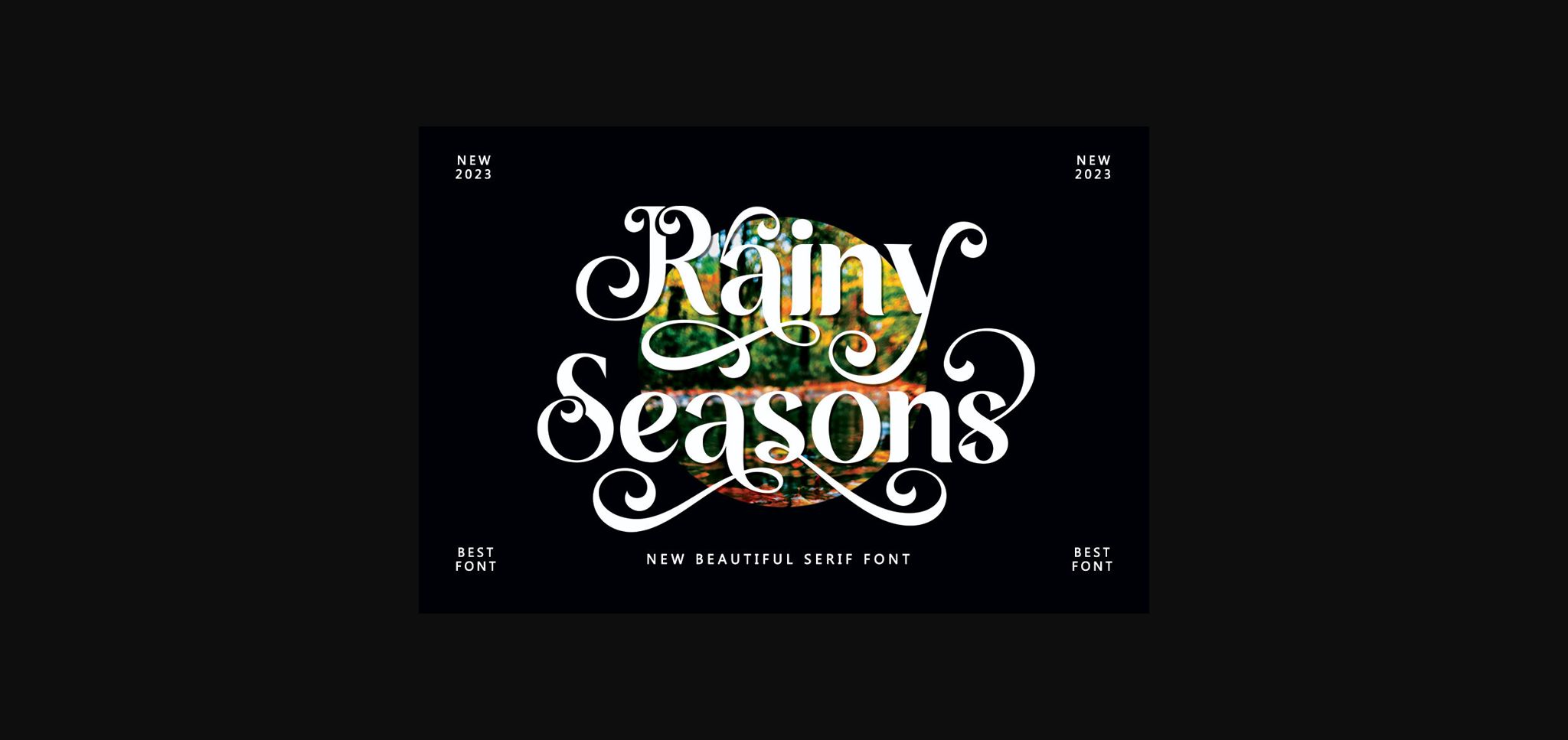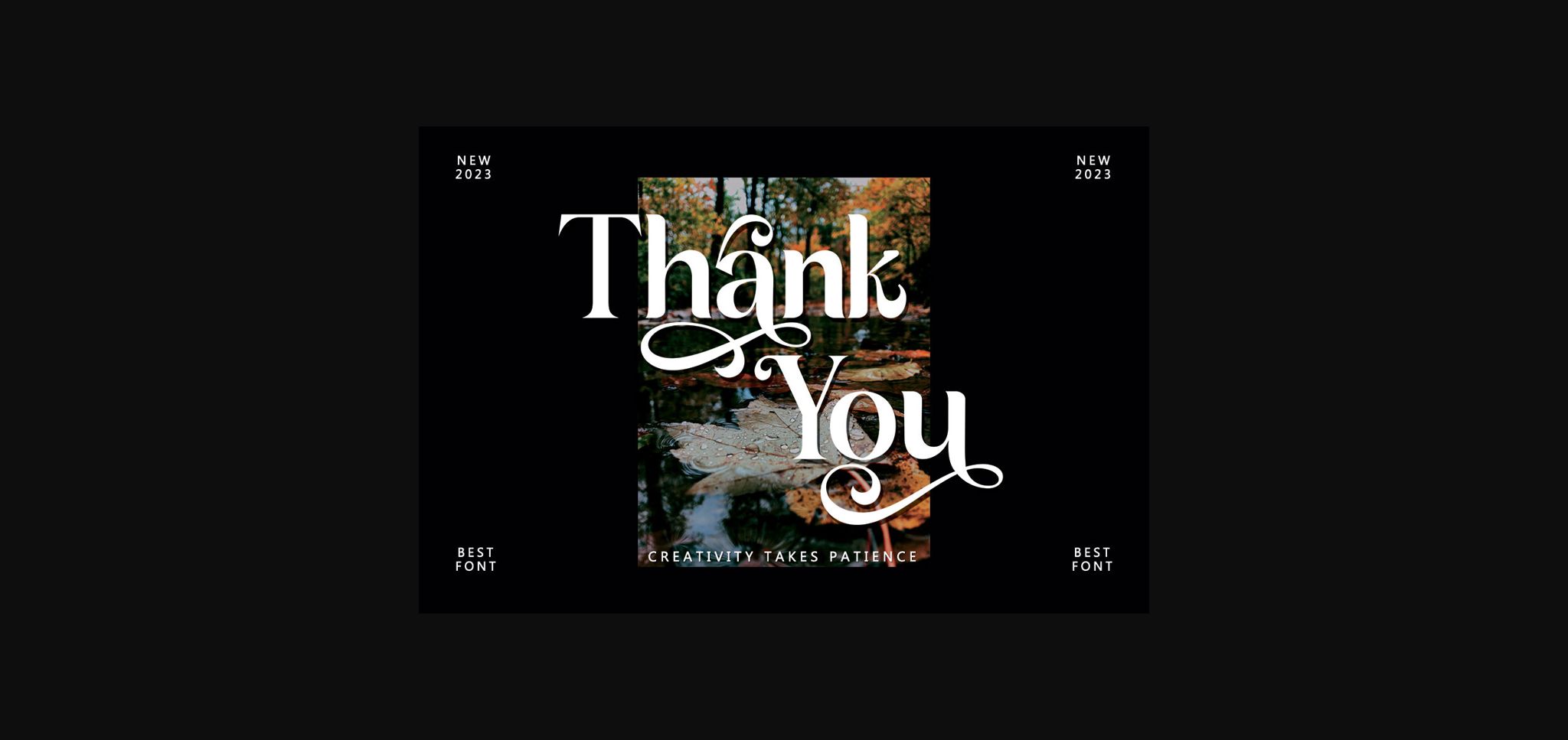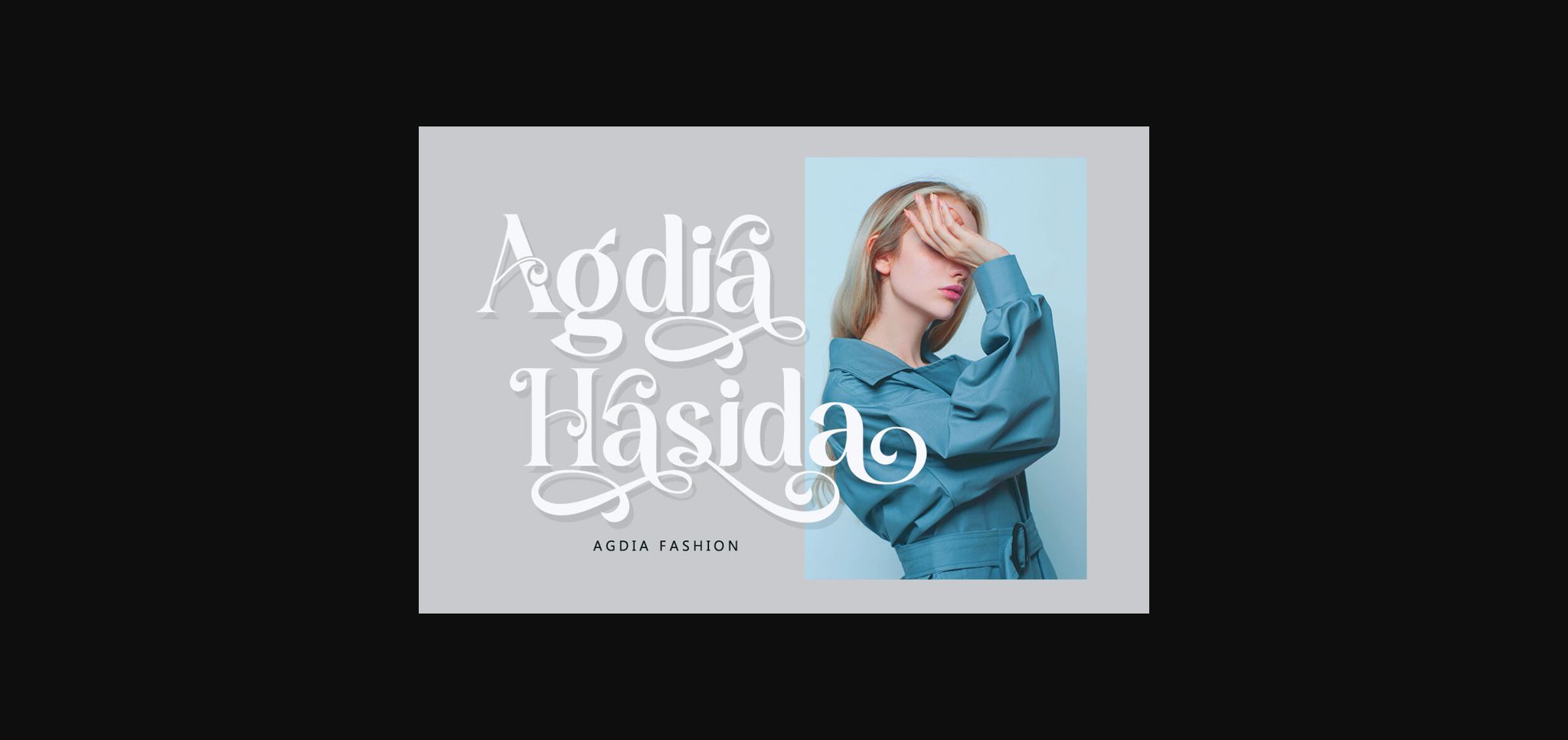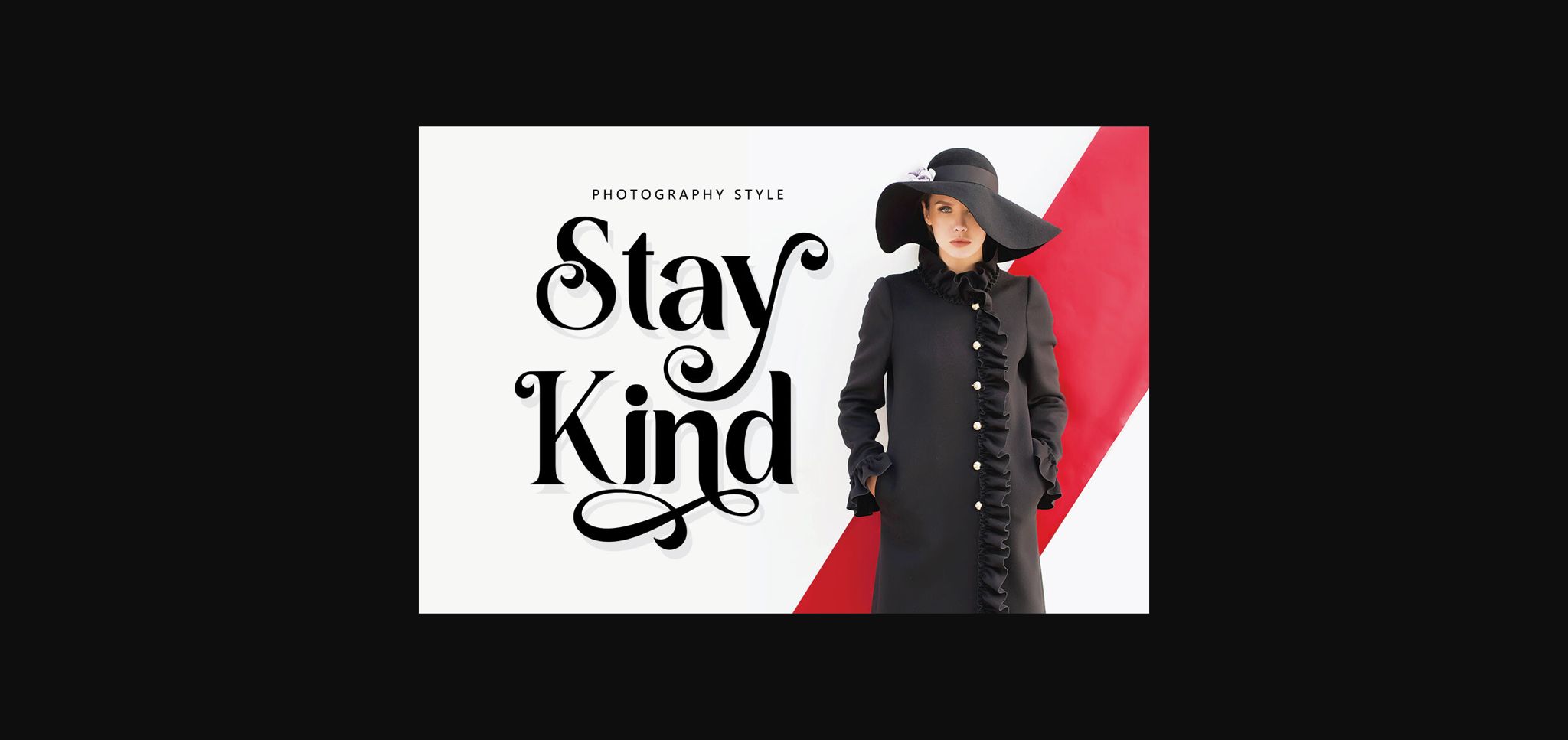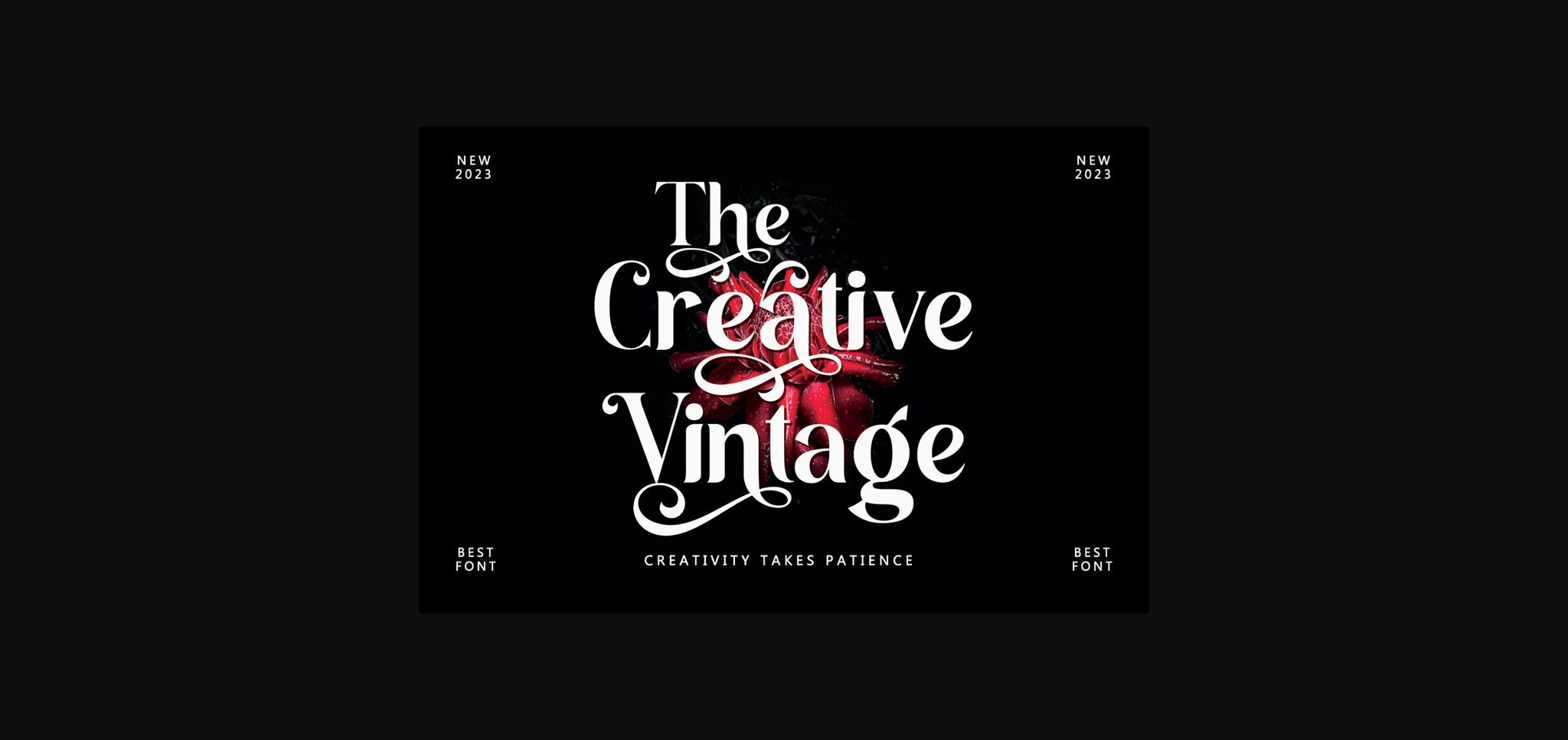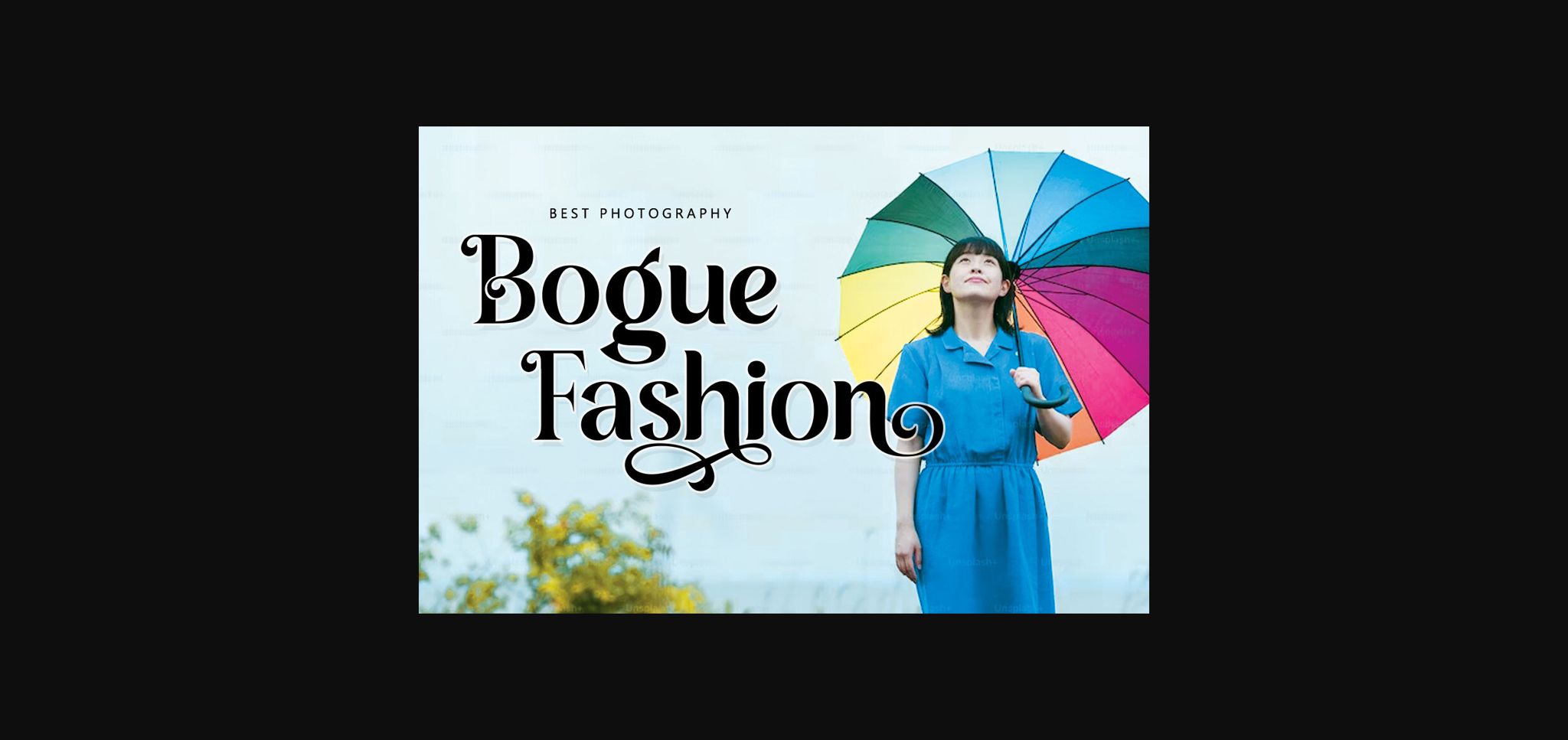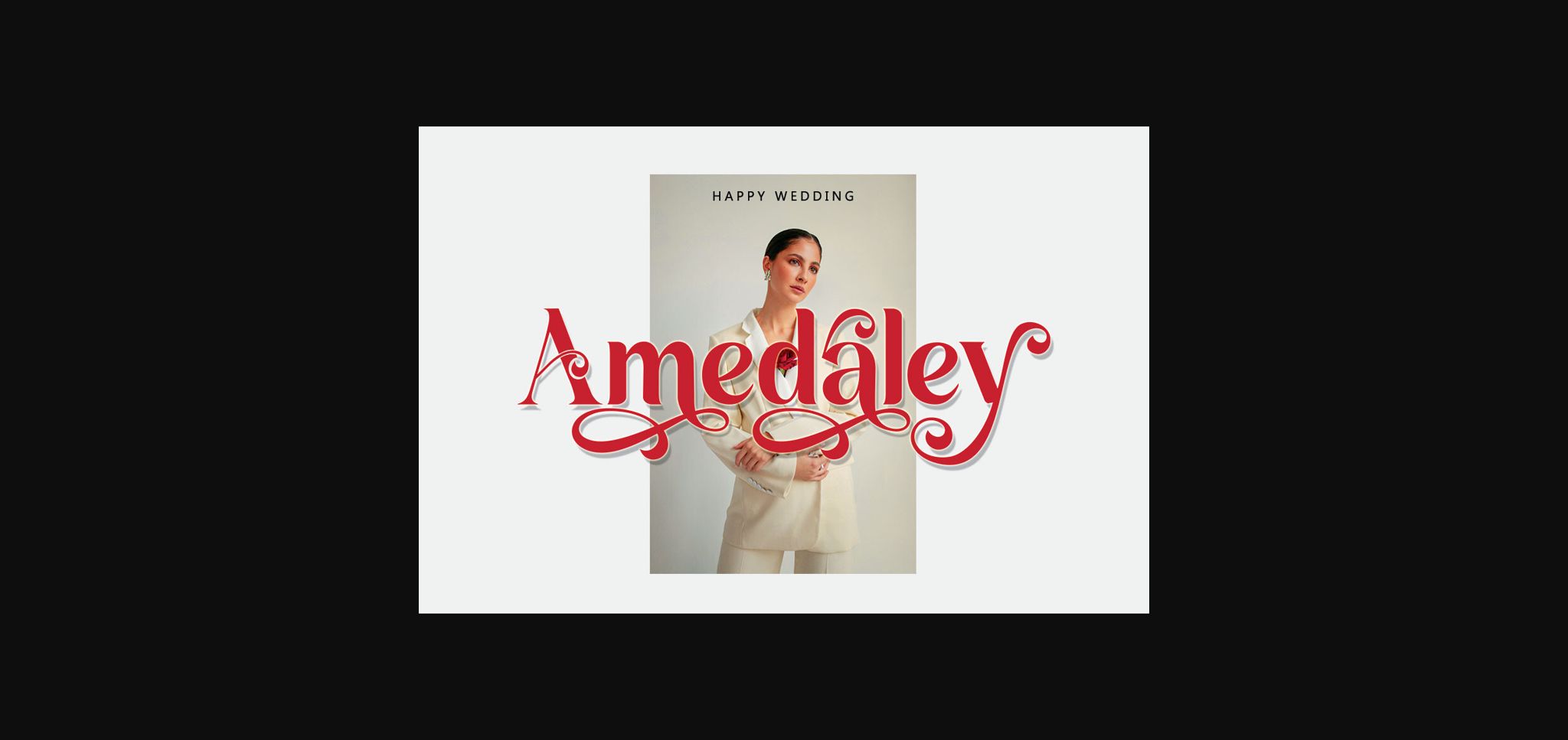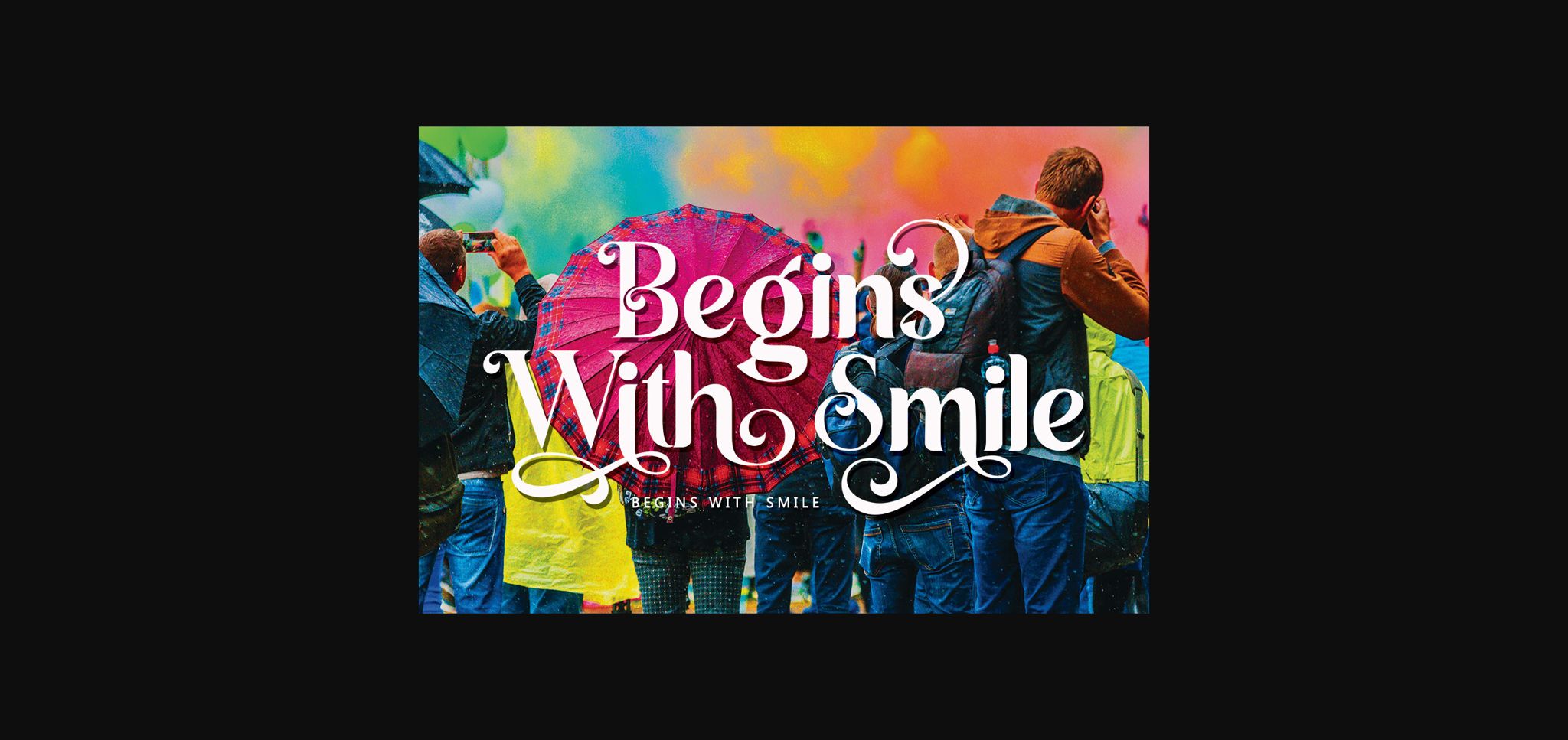
Rainy Seasons Font
About Rainy Seasons Font
Rainy Seasons is a beautiful and versatile serif font. This font is characterized by a serif style with a luxurious style in a modern form, but also a friendly and cheerful style in bold, Rainy Seasons has glyphs to give crafters more choices in designing. This modern style will make a design appear more classy, elegant, unique, and edgy.
Rainy Seasons is a font suitable for many projects, modern or even retro vintage designs, branding, logos, crafts, stickers, sublimation, wedding invitations, and much more. This font is suitable for various projects such as logos, branding, magazines, signage, fashion, and many more.